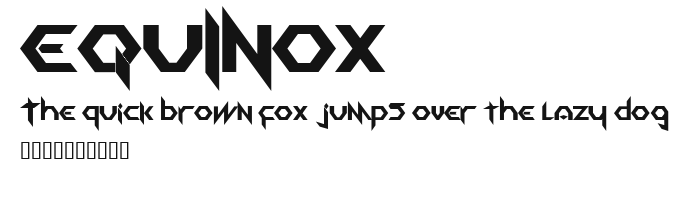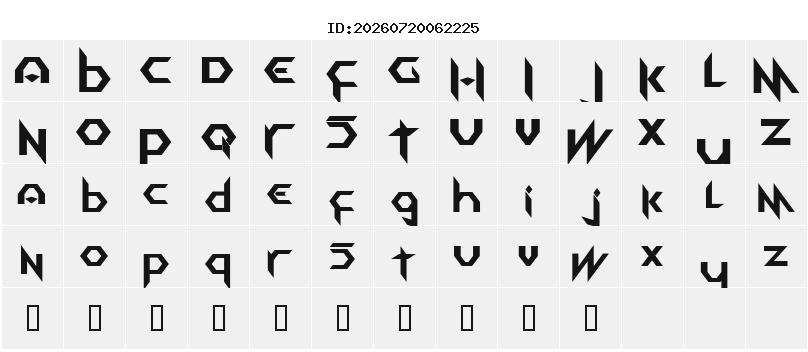
• Font Name: EQUINOX
EQUINOX.ttf is a modern, elegant sans-serif font designed for ultimate readability and visual harmony. Perfect for branding, headlines, web design, and print materials.